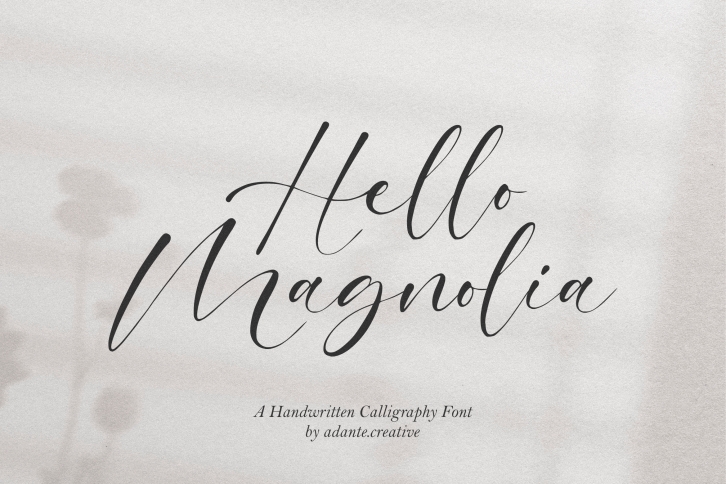
Hello Magnolia feels equally charming and elegant. It looks stunning on wedding invitations, thank you cards, quotes, greeting cards, logos, business cards, and every other design which needs a romantic handwritten touch.